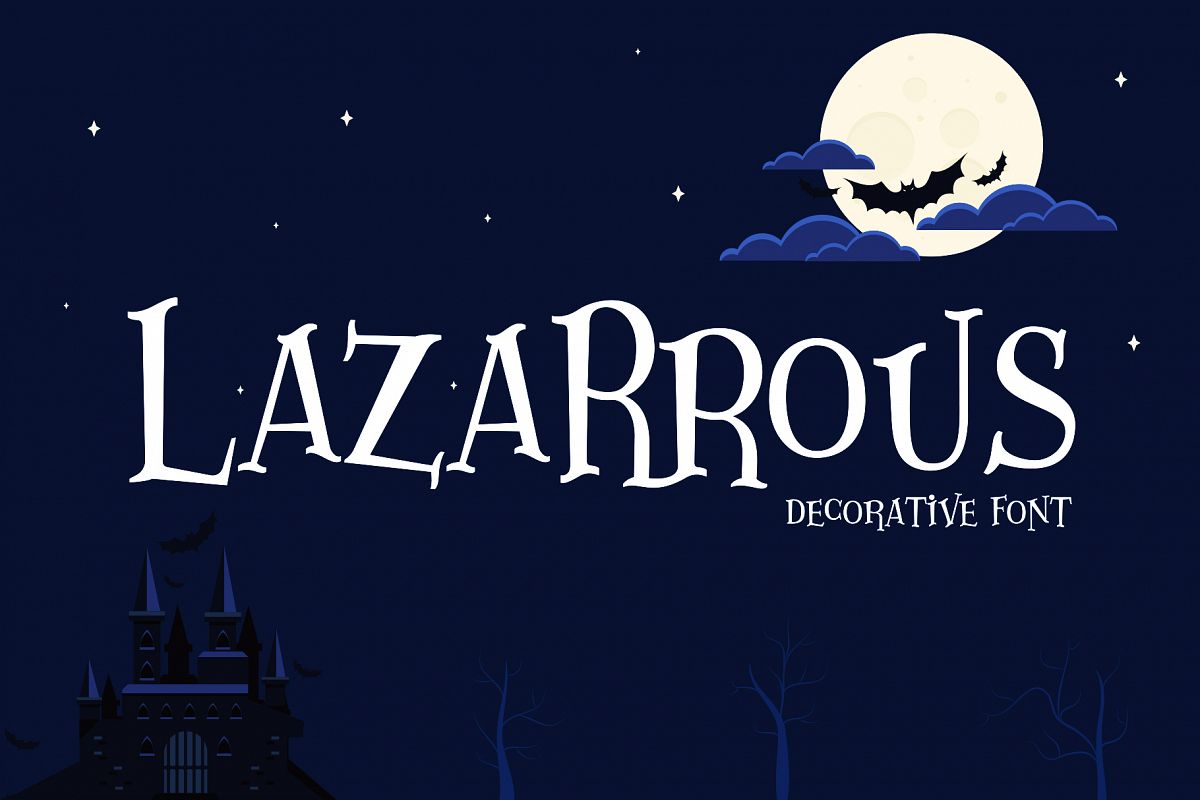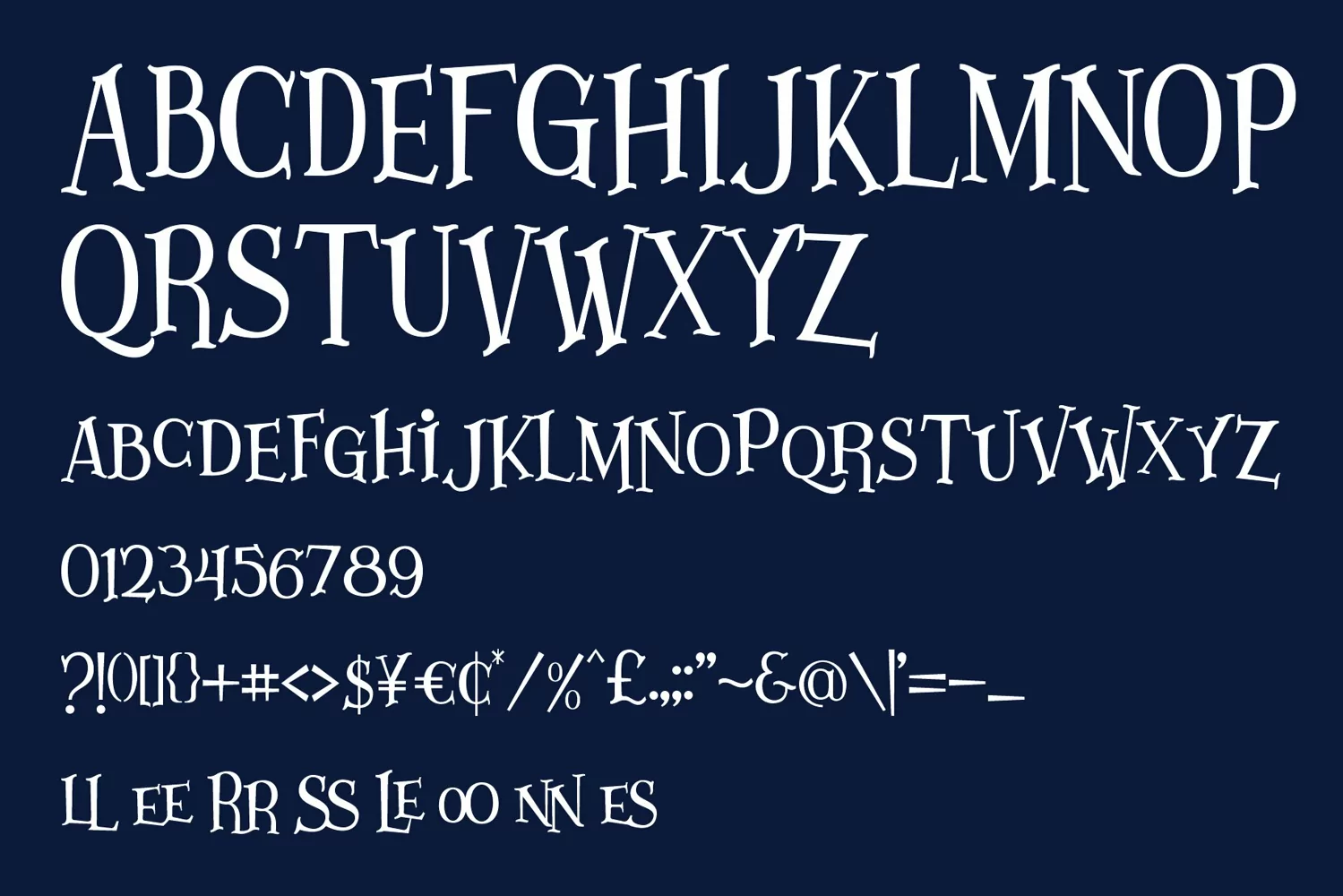
-- Spooky / Original / Decorative --Lazarrous font is a decorative font family Inspired by kids book cover design, we try to make it more decorative so it's can useful for any purpose. it's perfect for you to show your design or product in professional way.
USELazarrous font is works great in any branding, logos, magazines, films, poster, flyer, sign board, magazine,etc